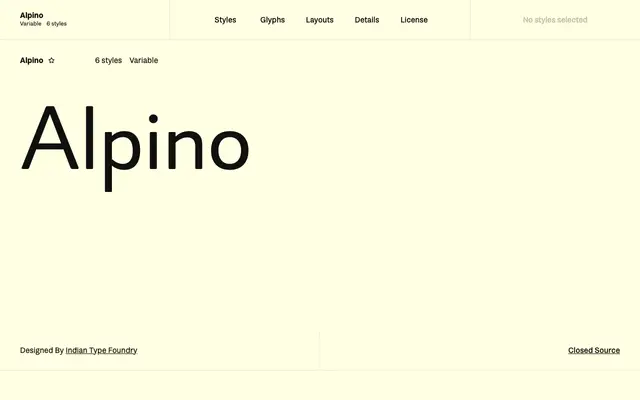
Alpino
Fontshare · Indian Type Foundry · 2021
A humanist sans from Indian Type Foundry with a small x-height, oldstyle figures and distinctively rounded stroke terminals, aimed at magazine and editorial work.
Designed by Indian Type Foundry and released via Fontshare in March 2021, Alpino is a humanist sans built around a small x-height with wide capitals that sit comfortably alongside generous ascenders and descenders. Proportional oldstyle figures and subtly rounded stroke corners give it warmth, while distinctive details — a bearded capital G without a crossbar, a double-storey g with a flamboyant ear, and a curved y tail — lend it some personality without being loud. Available in six static weights from Thin to Black plus a variable font, with coverage across 135 languages.
Classified by the foundry as a humanist sans, with double-storey 'a' and 'g', proportional oldstyle figures, and rounded stroke terminals that become more pronounced in heavier weights — all hallmarks of humanist sans design with editorial intent.